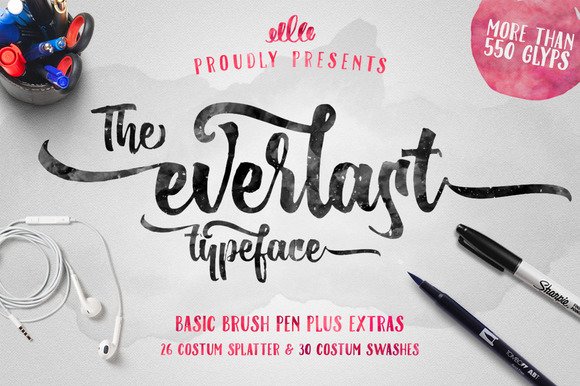
The Everlast Script Font
Introducing The Everlast Typeface, a hand scripted font with pen brush style, carefully designed with harmony in every single character. Very suitable for greeting cards, branding materials, business cards, quotes, posters, and more!This font are perfect for wedding postcard. Or you can create perfect and unique design of your logo, blog, stationery, marketing, magazines and more ?